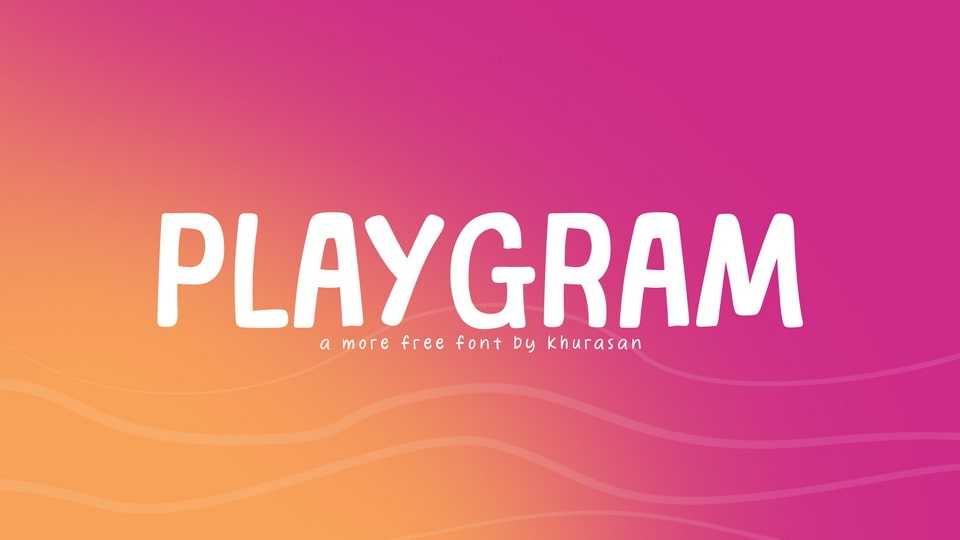
Download Playgram font, a typeface that brings your designs to life with a whimsical, hand-drawn charm. Playgram font is your go-to choice for creating designs that feel like a fun, animated adventure.